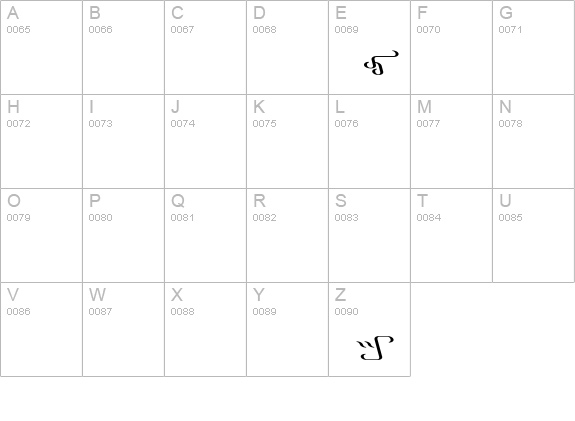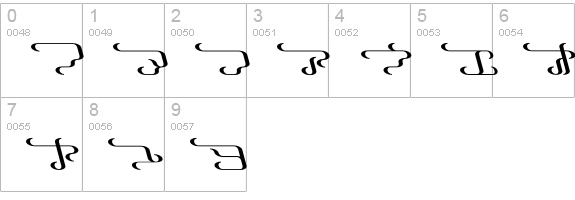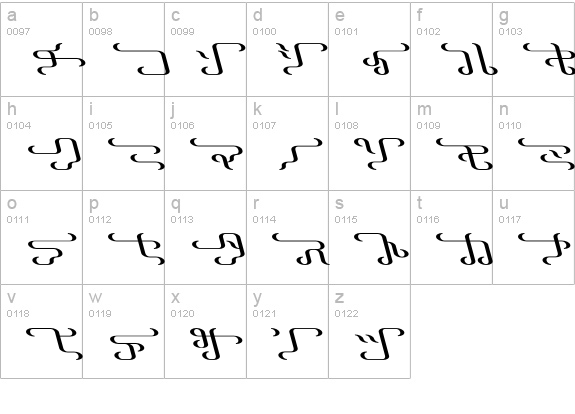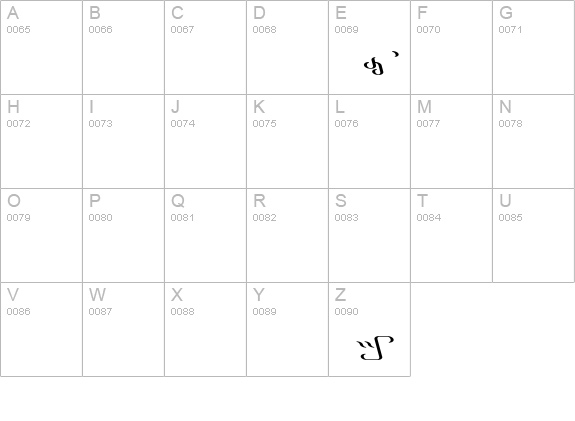
Alarla Font Details
Alarla font is a stunning and versatile typeface that combines elegance with a touch of modernity. Its graceful curves and clean lines make it perfect for a wide range of design projects, from branding to editorial design. The font's sleek and sophisticated appearance adds a touch of sophistication to any layout, making it a popular choice among designers and creatives. What sets Alarla font apart is not only its aesthetic appeal but also the fact that it is available for free. Yes, you read that right – this exquisite font is freely available to download at FontsMarket.com. Whether you're working on a personal project or a client's design, Alarla font is a fantastic choice that won't break the bank. With its wide range of weights and styles, Alarla font offers endless possibilities for creativity and customization. Whether you're looking to create a bold headline or a subtle accent, this font has got you covered. Download Alarla font today and elevate your designs with its timeless beauty and effortless style.